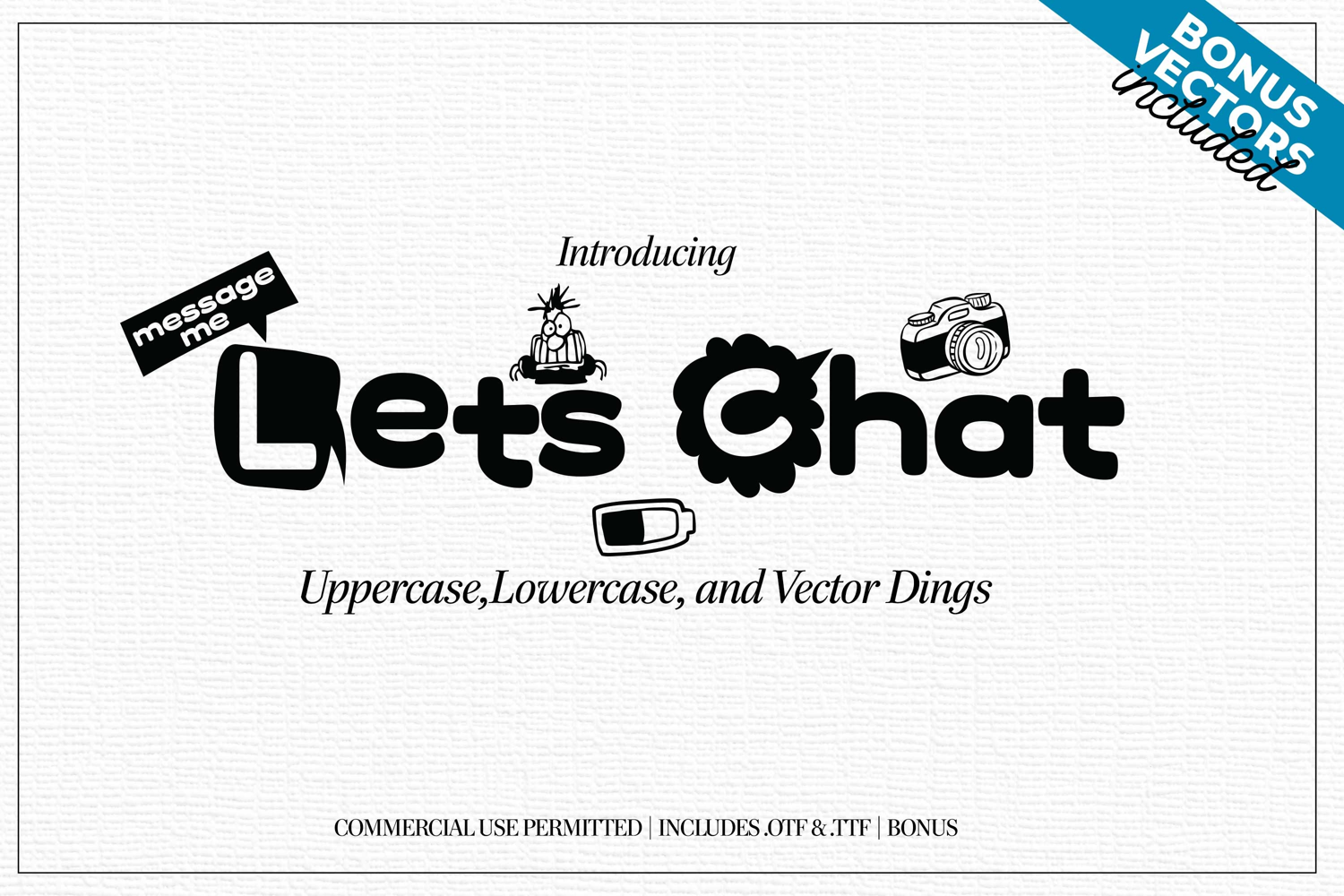
Let's Chat
A a fun chat themed font includes the .ttf & .otf versions as well as a bonus dingbats in a single eps vector format. Include Uppercase and lowercase letters